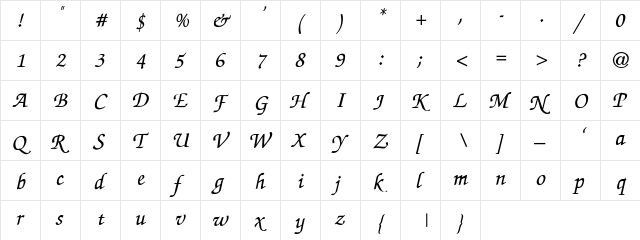
Defoe-Thin-Italic Regular
Defoe-Thin-Italic takes a measured approach to typography — its balanced proportions and neutral character make it a reliable workhorse for both digital and print work. The slanted form adds forward momentum and visual energy. Its slender proportions lend an understated elegance to any composition.